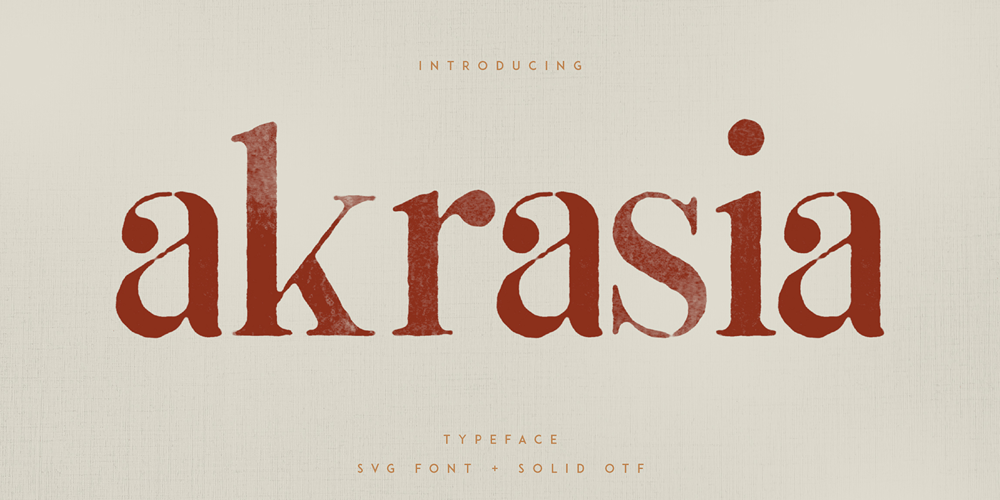
Akrasia VP Font Family was designed by Vladimir Fedotov, Plamen Petrov and published by VP Creative Shop. Akrasia VP contains 1 styles and family package options. Introducing Akrasia Typeface – Bitmap vsg + solid fontsAkrasia is perfect for branding projects, home-ware designs, product packaging, magazine headers – or simply as a stylish text overlay to any background image.